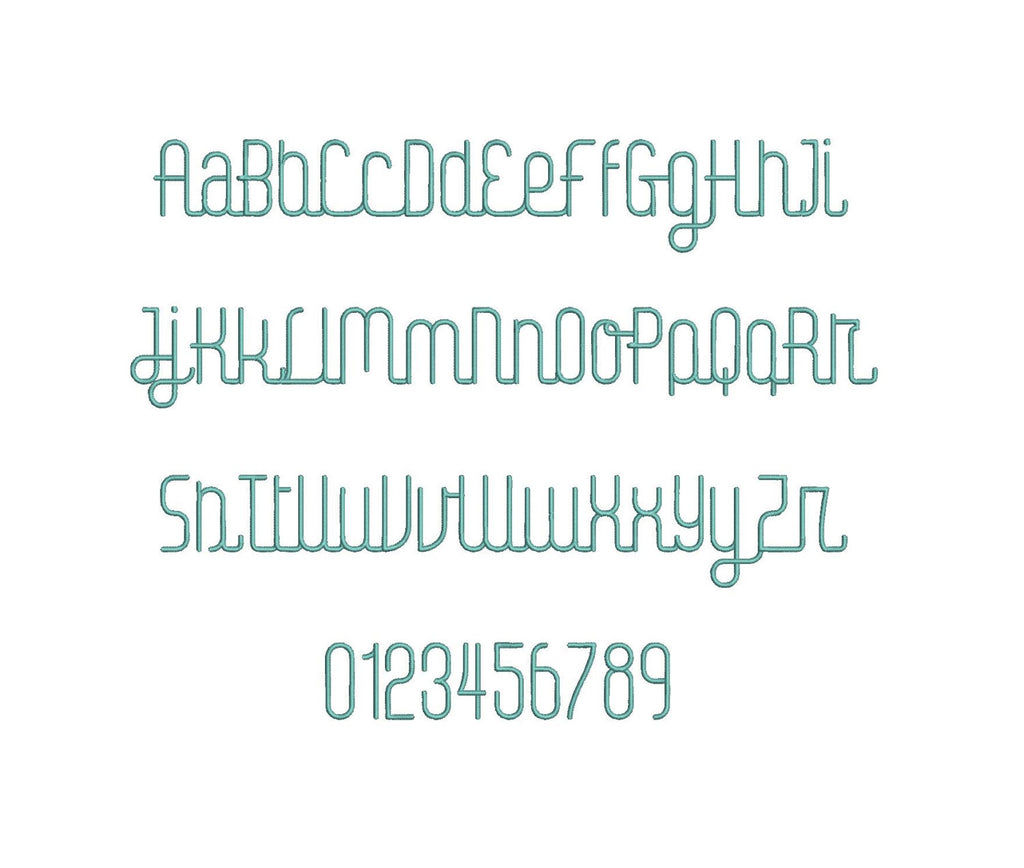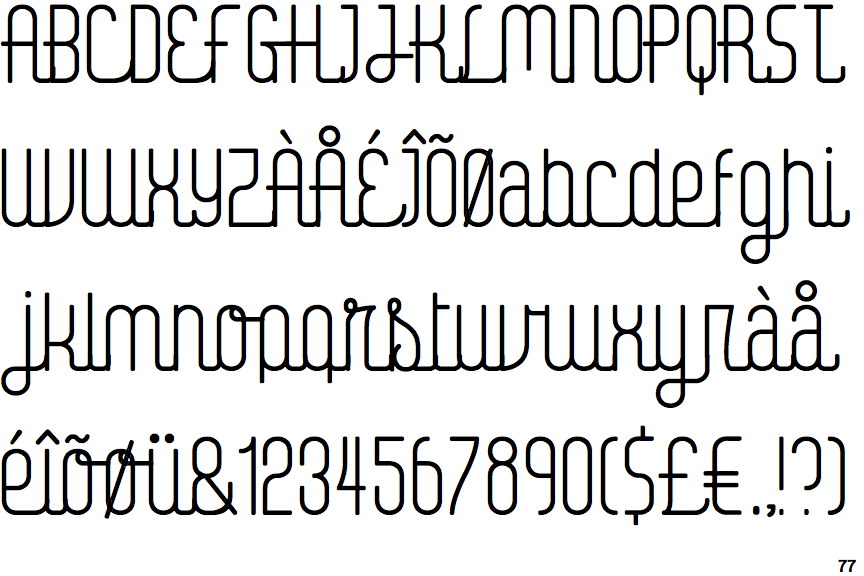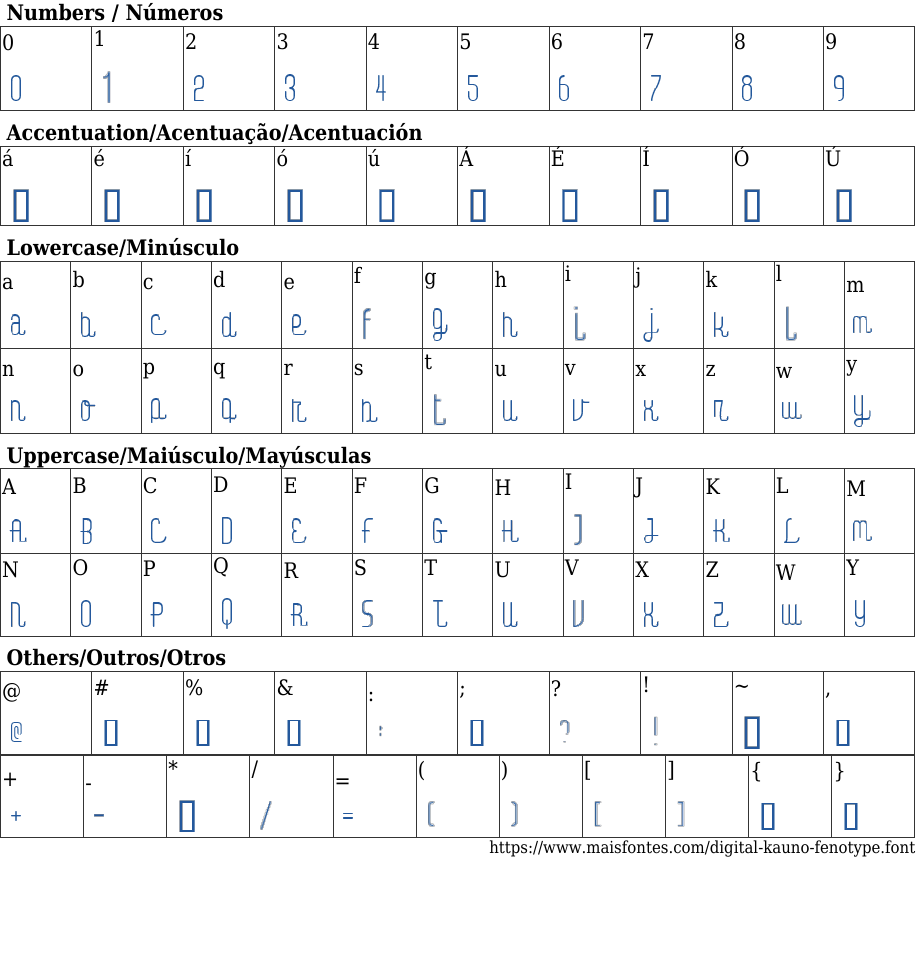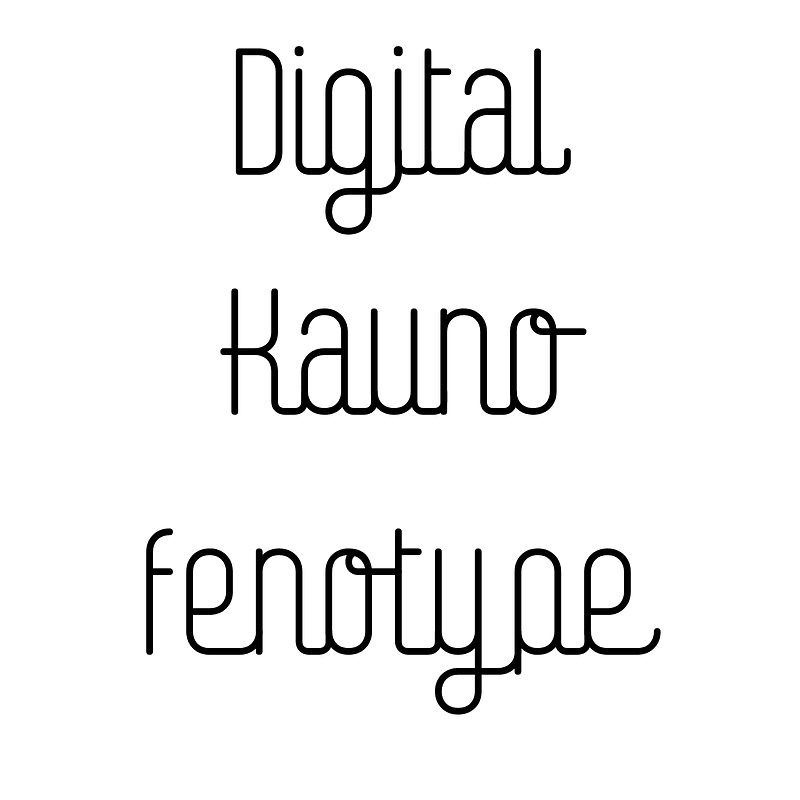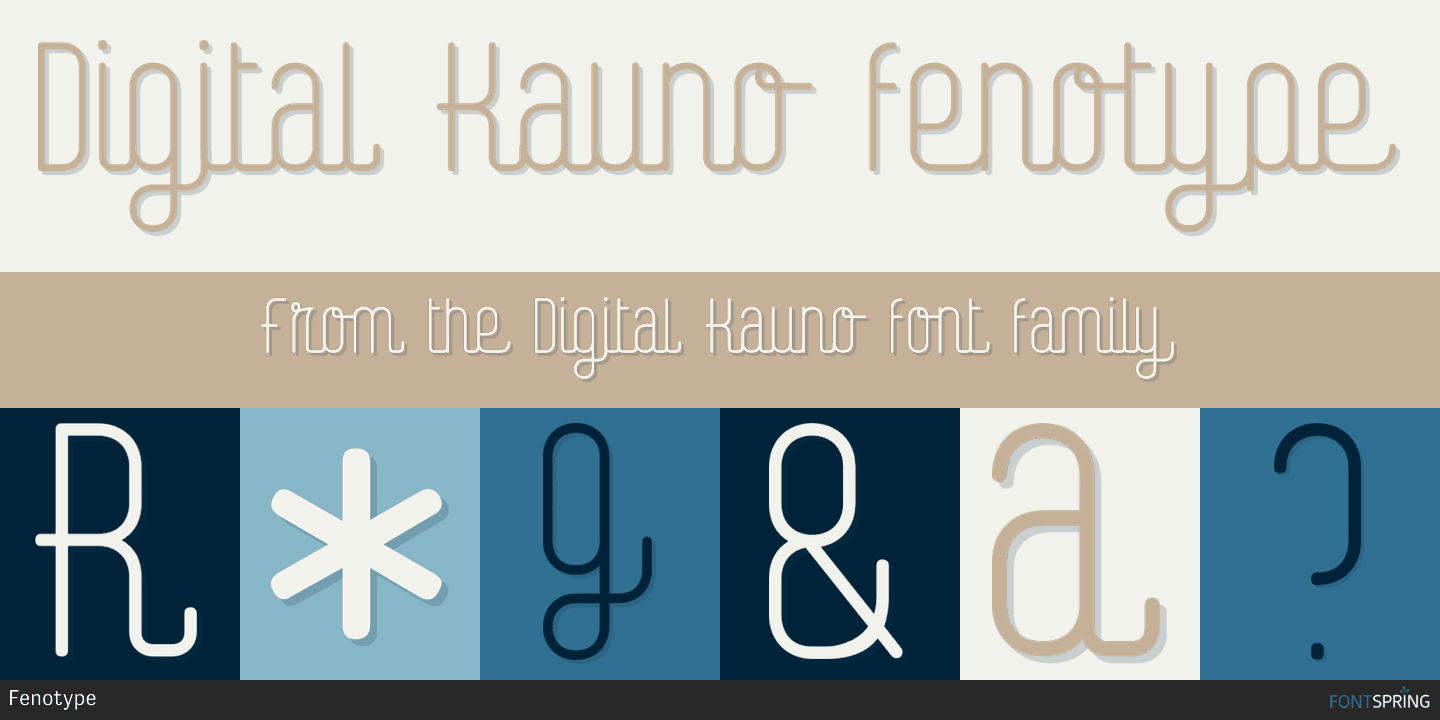
Digital Kauno Font . download digital kauno font · free for commercial use ·. download and install the digital kauno font by fenotype. free download of digital kauno font. digital kauno is an expressive typeface created by fenotype, designed to capture the essence of vintage computer aesthetics. digital kauno font contains 78 defined characters and 77 unique glyphs. It is recommended for headlines and display use. Released in 2002 by fenotype and licensed for personal and commercial. digital kauno is a soft geometric script type. Digital kauno was originally designed in 2002 and it. The font contains characters from the following unicode character ranges: The digital kauno font has been downloaded 11,620 times.
The font contains characters from the following unicode character ranges: download and install the digital kauno font by fenotype. free download of digital kauno font. digital kauno font contains 78 defined characters and 77 unique glyphs. download digital kauno font · free for commercial use ·. It is recommended for headlines and display use. digital kauno is an expressive typeface created by fenotype, designed to capture the essence of vintage computer aesthetics. digital kauno is a soft geometric script type. Digital kauno was originally designed in 2002 and it. The digital kauno font has been downloaded 11,620 times.
Digital Kauno Font Released in 2002 by fenotype and licensed for personal and commercial. The font contains characters from the following unicode character ranges: Released in 2002 by fenotype and licensed for personal and commercial. Digital kauno was originally designed in 2002 and it. download and install the digital kauno font by fenotype. download digital kauno font · free for commercial use ·. digital kauno font contains 78 defined characters and 77 unique glyphs. free download of digital kauno font. digital kauno is a soft geometric script type. digital kauno is an expressive typeface created by fenotype, designed to capture the essence of vintage computer aesthetics. The digital kauno font has been downloaded 11,620 times. It is recommended for headlines and display use.
Digital Kauno embroidery font formats dst, exp, pes, jef and xxx, Size Digital Kauno Font digital kauno is a soft geometric script type. digital kauno is an expressive typeface created by fenotype, designed to capture the essence of vintage computer aesthetics. The font contains characters from the following unicode character ranges: It is recommended for headlines and display use. Digital kauno was originally designed in 2002 and it. download digital kauno font. Digital Kauno Font.
Digital Kauno Font Vectordad Digital Kauno Font digital kauno is a soft geometric script type. digital kauno is an expressive typeface created by fenotype, designed to capture the essence of vintage computer aesthetics. Digital kauno was originally designed in 2002 and it. It is recommended for headlines and display use. free download of digital kauno font. download and install the digital kauno font. Digital Kauno Font.
Digital Kauno Font Download Fonts4Free Digital Kauno Font digital kauno is a soft geometric script type. free download of digital kauno font. The font contains characters from the following unicode character ranges: digital kauno font contains 78 defined characters and 77 unique glyphs. digital kauno is an expressive typeface created by fenotype, designed to capture the essence of vintage computer aesthetics. download and. Digital Kauno Font.
Digital Kauno Font · 1001 Fonts Digital Kauno Font digital kauno font contains 78 defined characters and 77 unique glyphs. download digital kauno font · free for commercial use ·. free download of digital kauno font. digital kauno is an expressive typeface created by fenotype, designed to capture the essence of vintage computer aesthetics. download and install the digital kauno font by fenotype. It. Digital Kauno Font.
Digital Kauno Font Released in 2002 by fenotype and licensed for personal and commercial. digital kauno is a soft geometric script type. download digital kauno font · free for commercial use ·. The font contains characters from the following unicode character ranges: Digital kauno was originally designed in 2002 and it. It is recommended for headlines and display use. digital. Digital Kauno Font.
Identifont FT Digital Kauno Font Digital kauno was originally designed in 2002 and it. download digital kauno font · free for commercial use ·. digital kauno is a soft geometric script type. free download of digital kauno font. The digital kauno font has been downloaded 11,620 times. It is recommended for headlines and display use. digital kauno is an expressive typeface. Digital Kauno Font.
The Finnish font scene Digital Kauno Font The digital kauno font has been downloaded 11,620 times. The font contains characters from the following unicode character ranges: digital kauno font contains 78 defined characters and 77 unique glyphs. download and install the digital kauno font by fenotype. Digital kauno was originally designed in 2002 and it. It is recommended for headlines and display use. Released in. Digital Kauno Font.